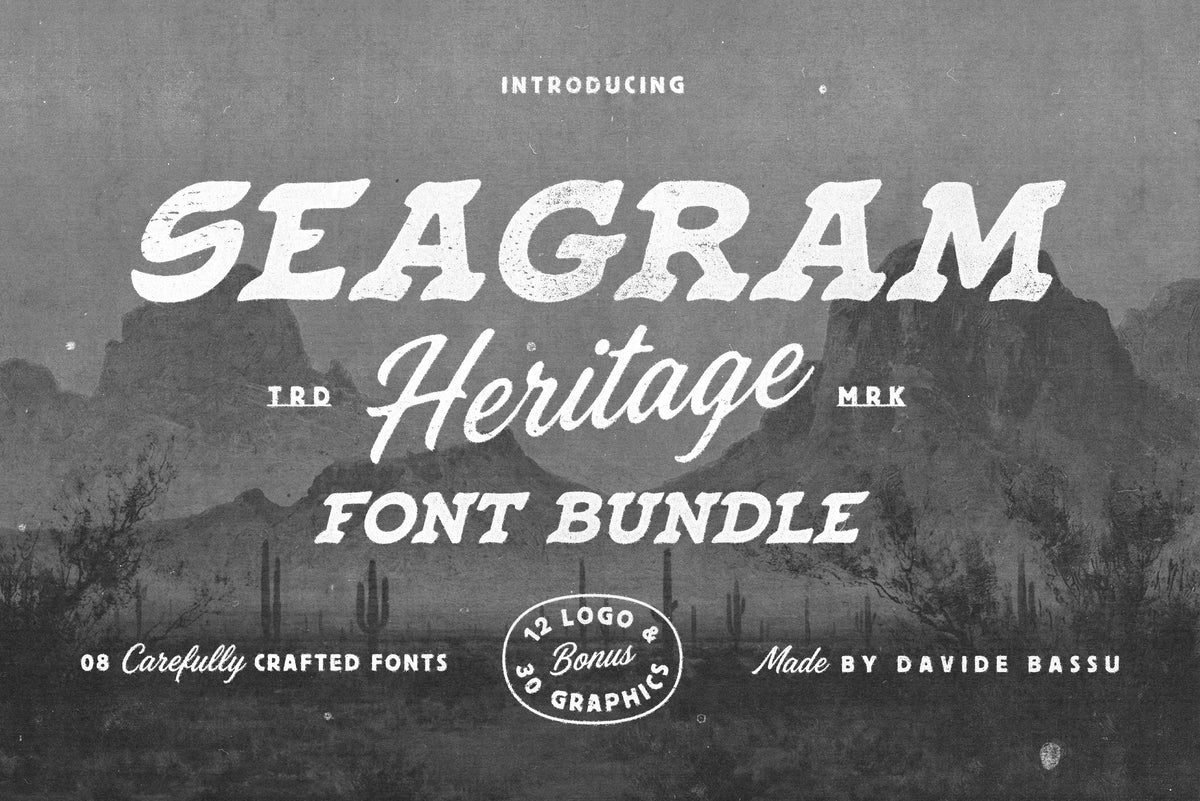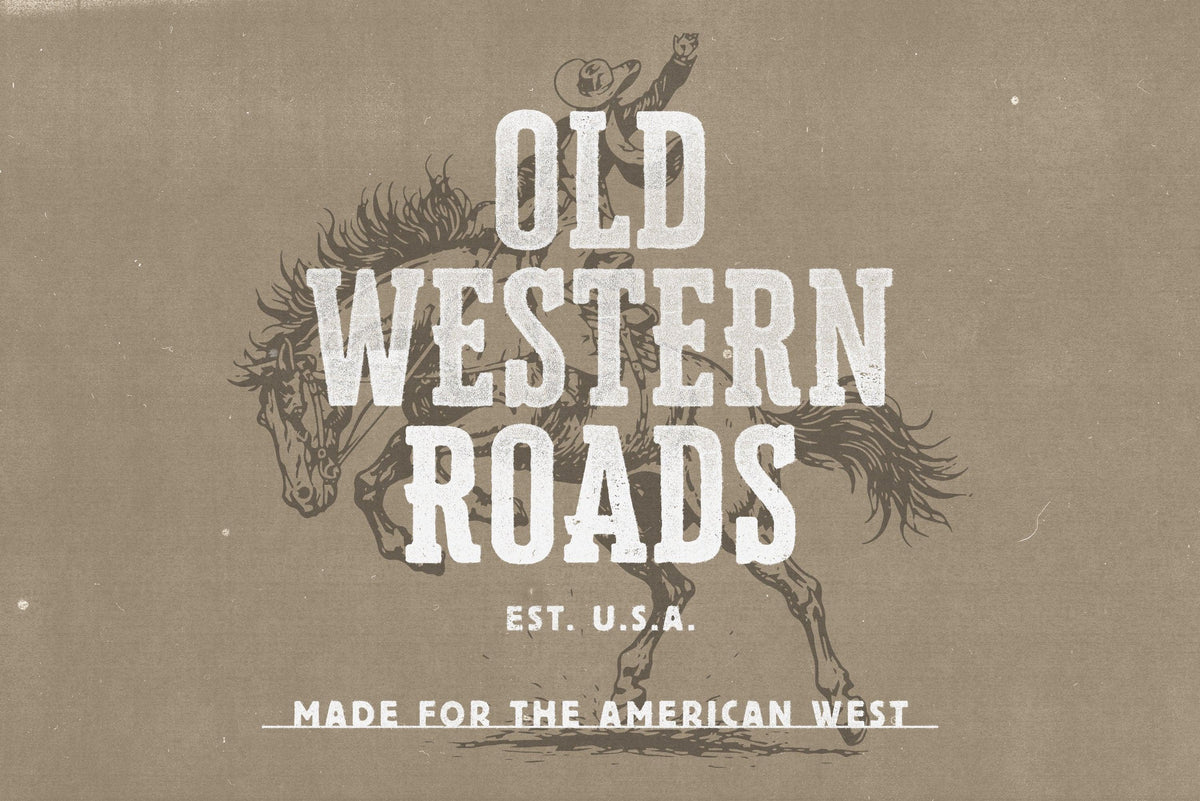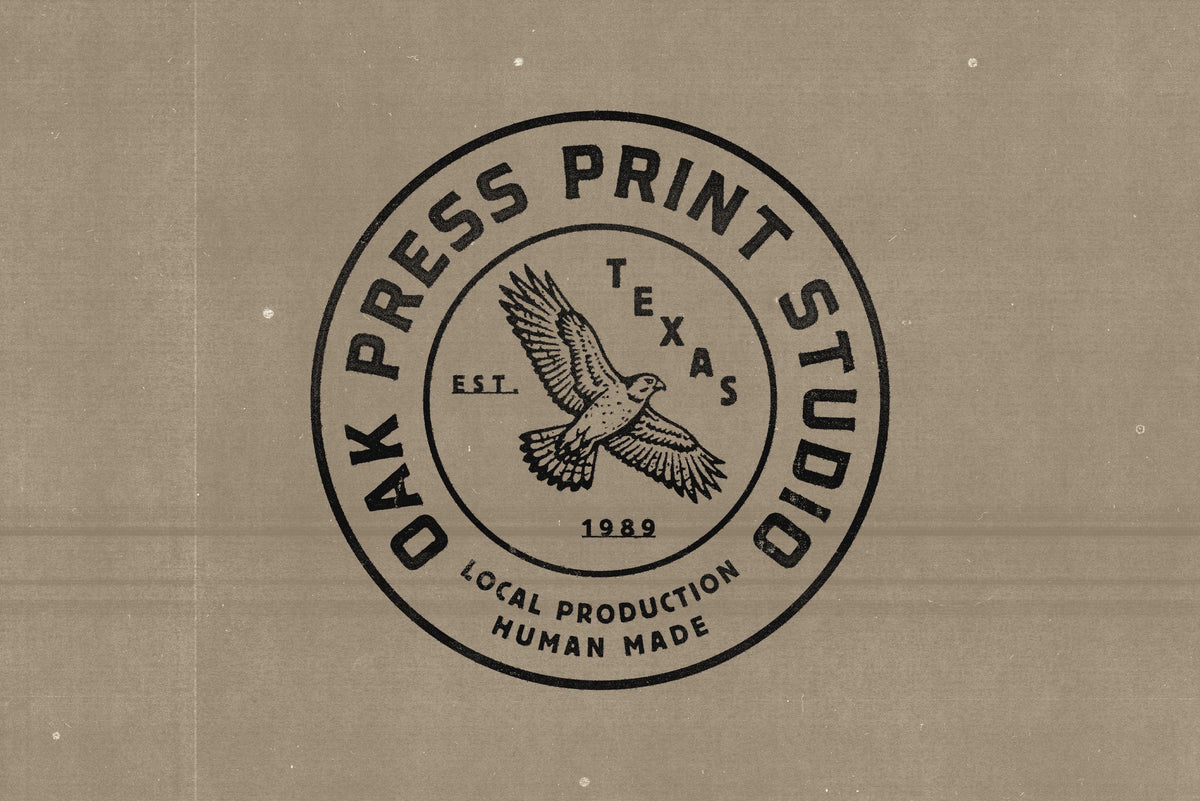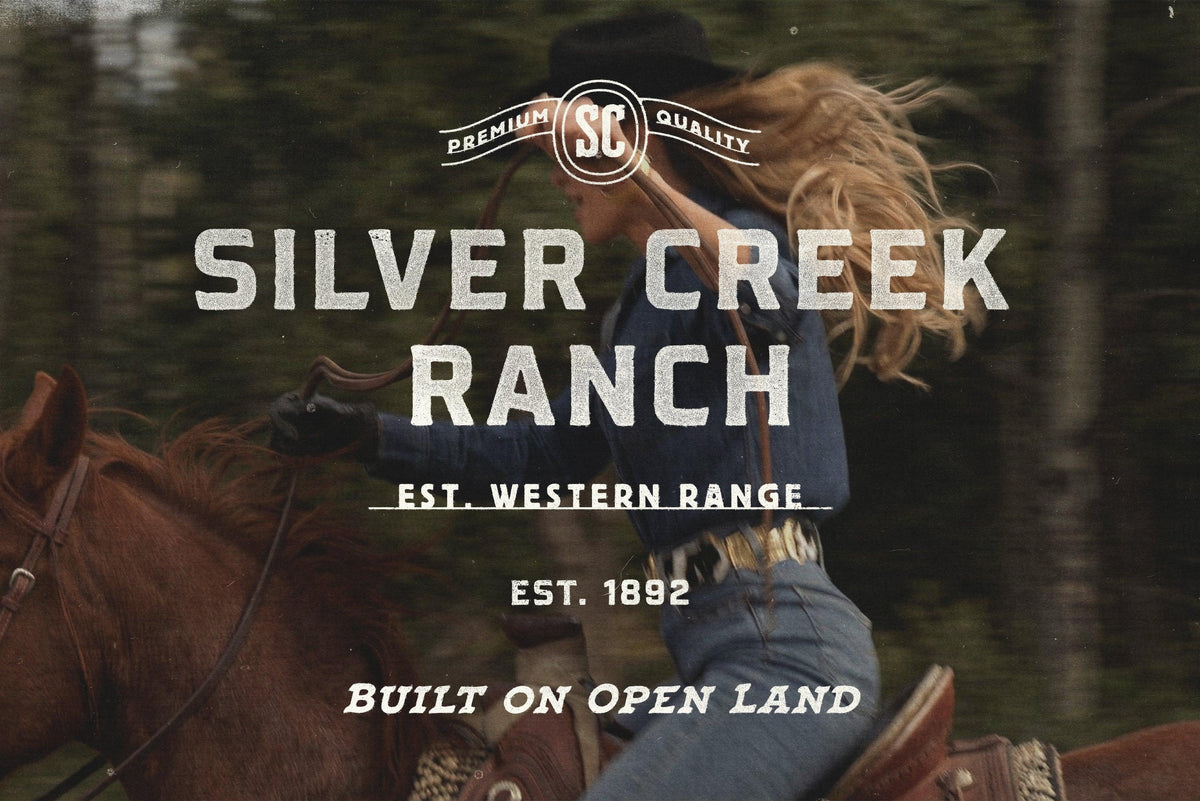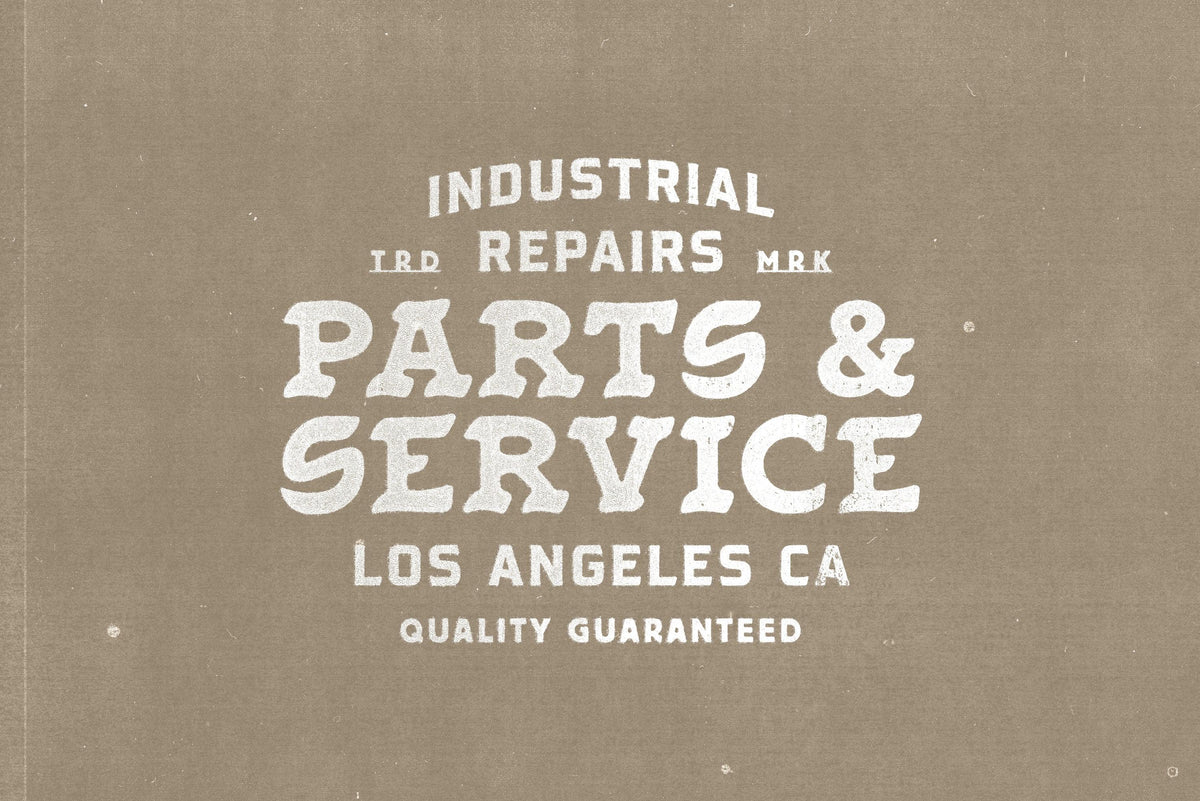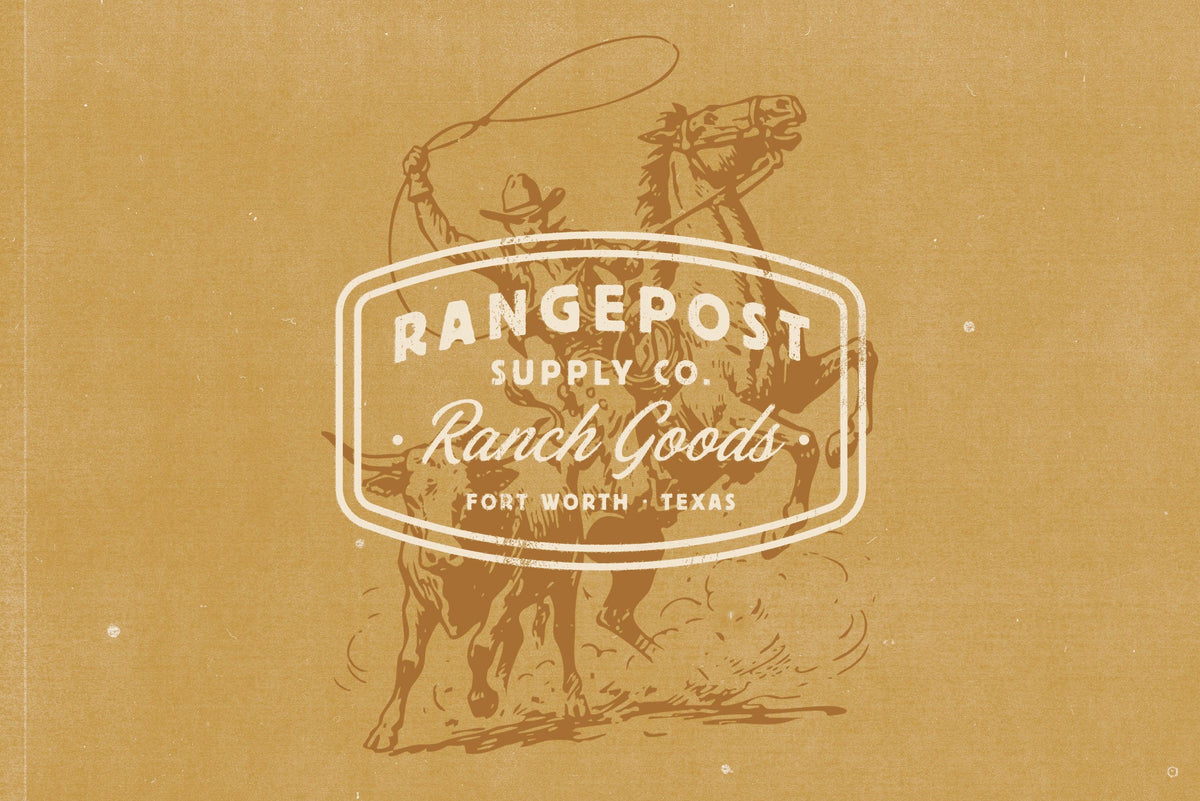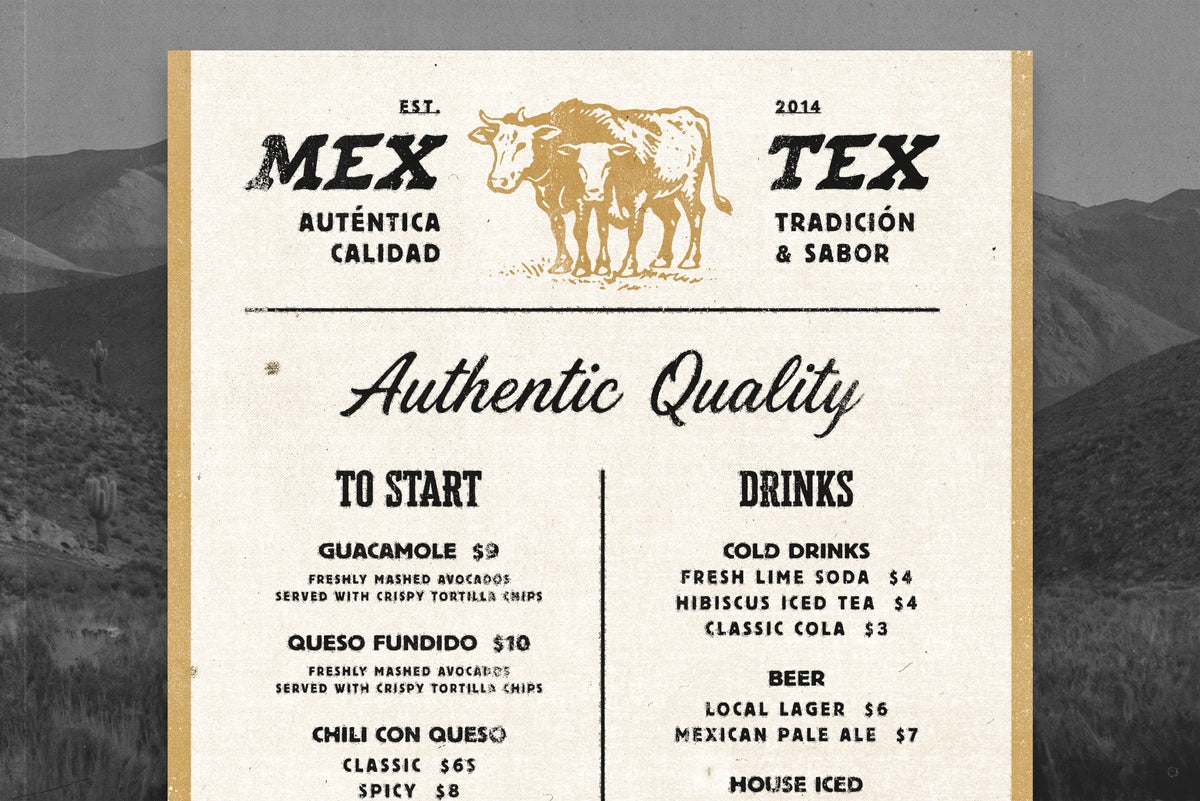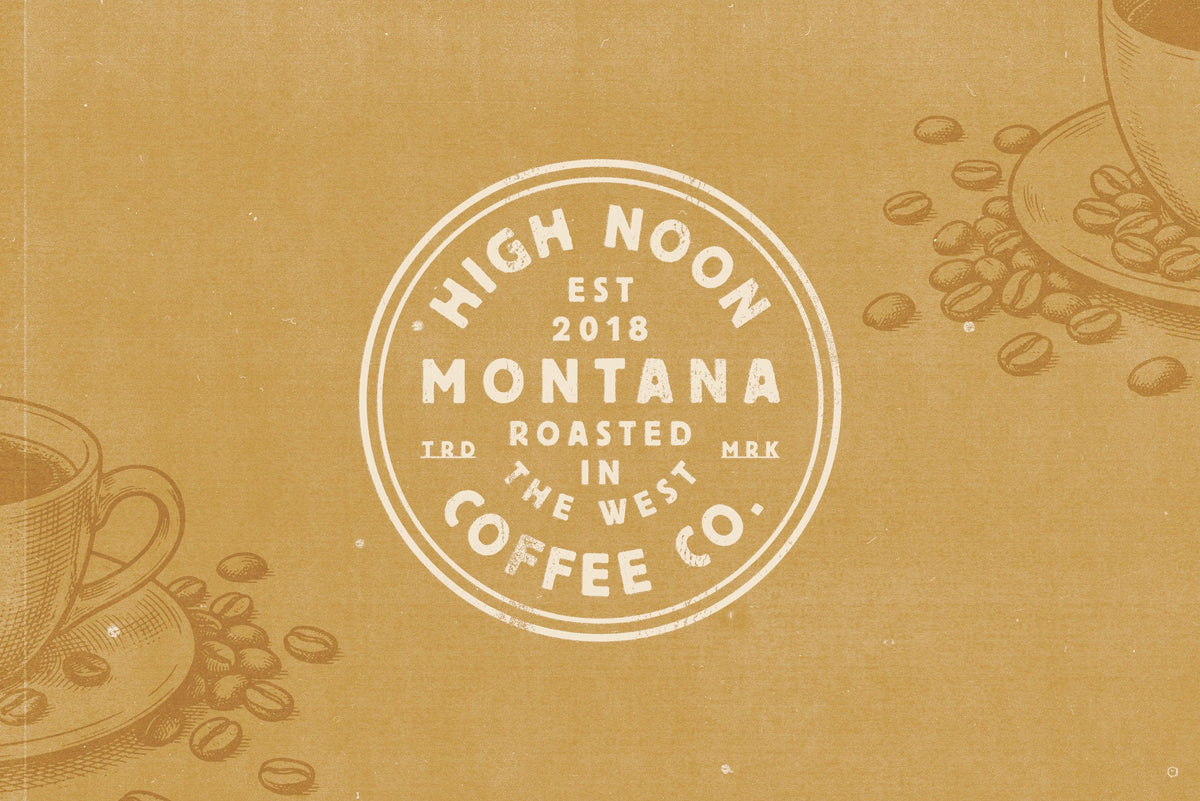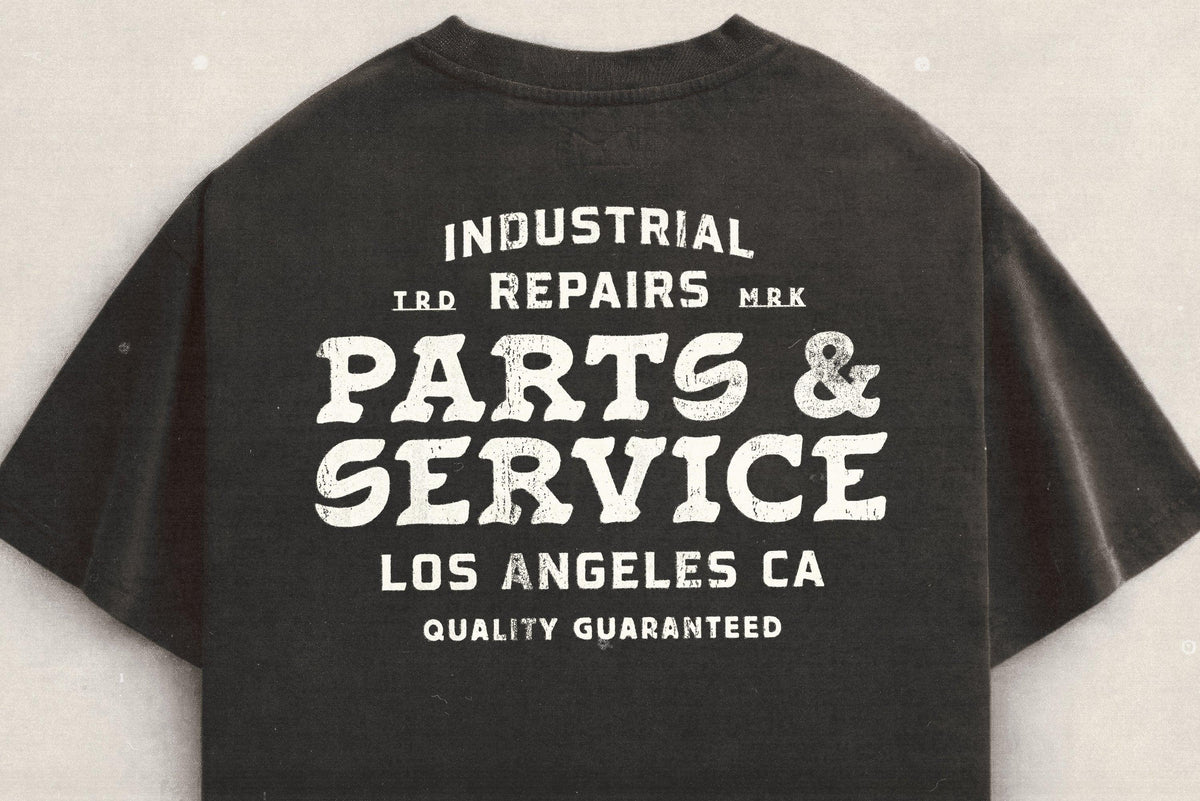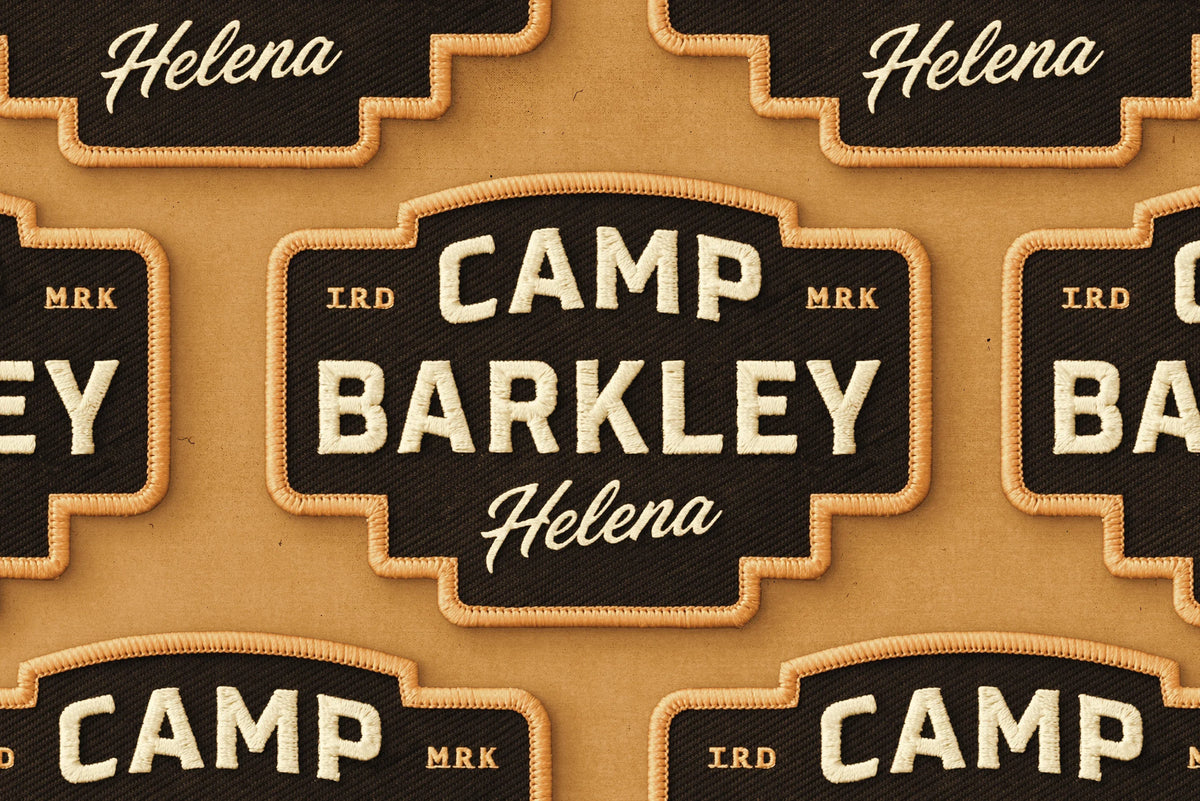
SEAGRAM Font Bundle & EXTRA
SEAGRAM is a western-inspired type collection shaped by heritage, character, and timeless craftsmanship. Drawing from vintage signage, ranch culture, and hand-lettered traditions, it delivers a warm, authentic western presence that feels familiar yet refined.
Rather than replicating a specific historical period, Seagram is designed around mood and balance — honest forms, subtle texture, and proportions that sit comfortably in modern design contexts.
The bundle includes 8 distinct fonts, each with its own voice but carefully built to work in harmony. From bold, confident display styles to expressive scripts and clean, practical sans options, Seagram functions as a complete and flexible typographic system for branding, packaging, and editorial work.
Each letterform embraces slight imperfections, blending structure with organic texture to preserve a handcrafted feel without sacrificing clarity or usability.
Alongside the fonts, the collection features 12 logo templates and 30 bonus graphics, created to expand the visual language and help you build cohesive, well-rounded brand identities with ease.